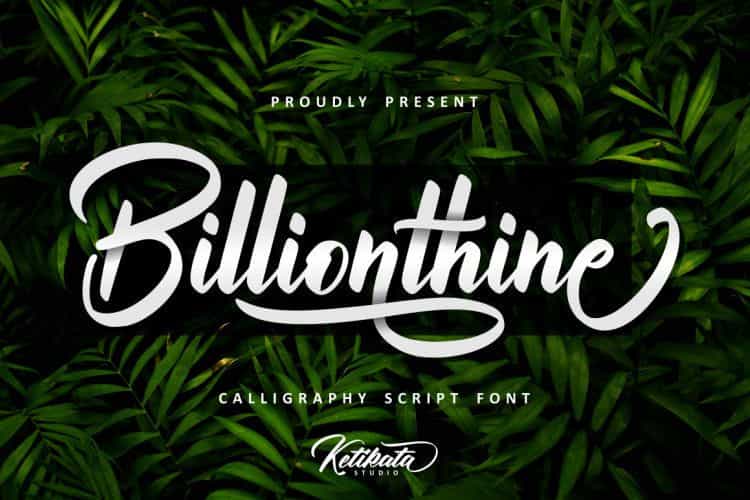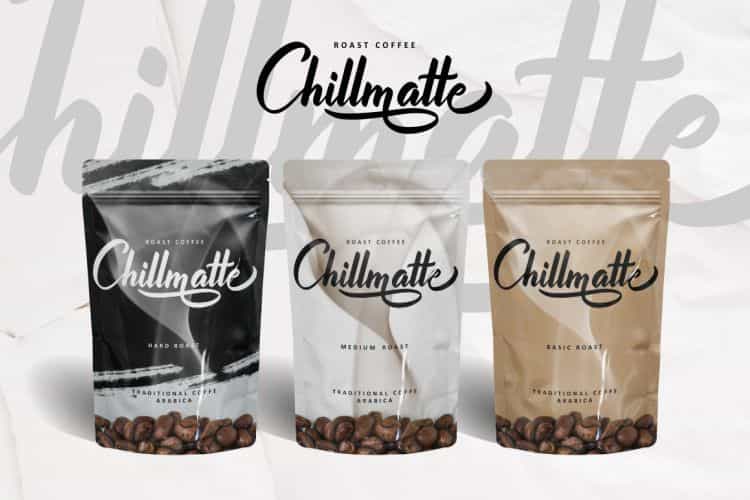
Billionthine is a daring and tough script font. carefully crafted with calligraphy. which has many stylistic different and swashes that will help you to create your own unique design.